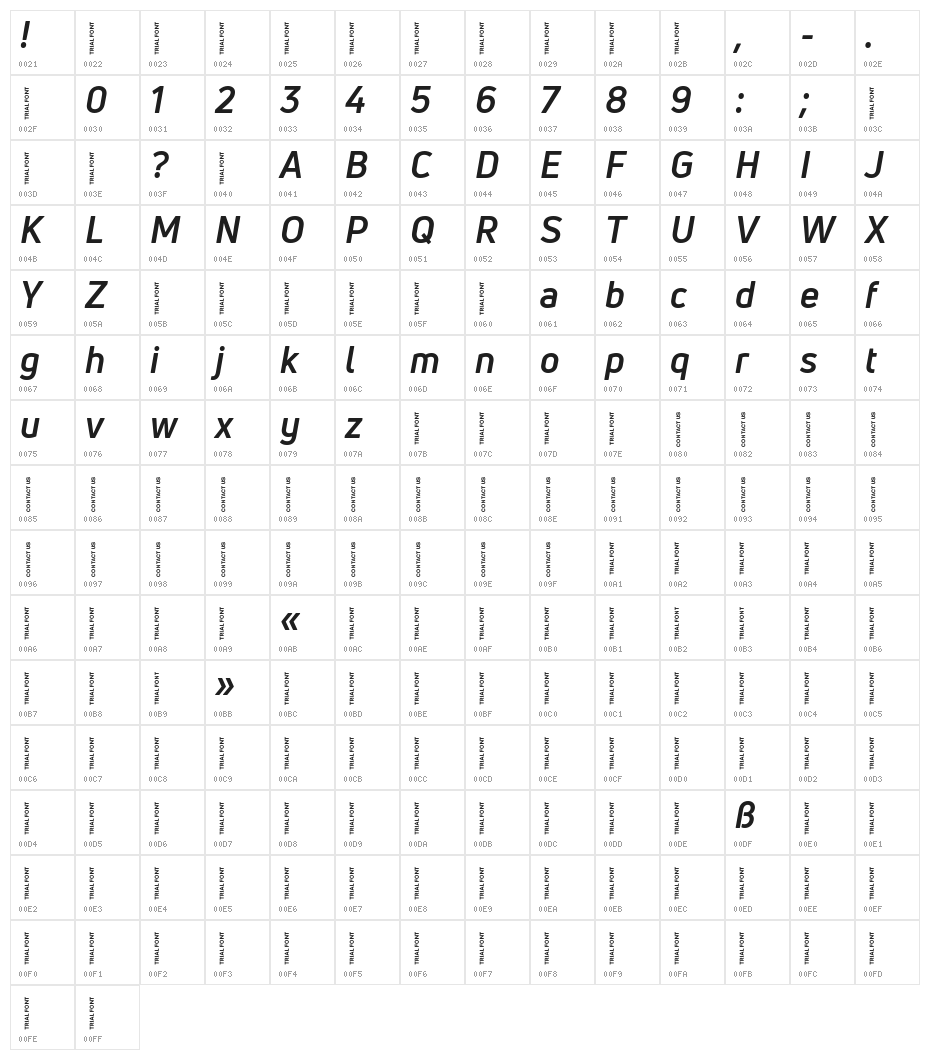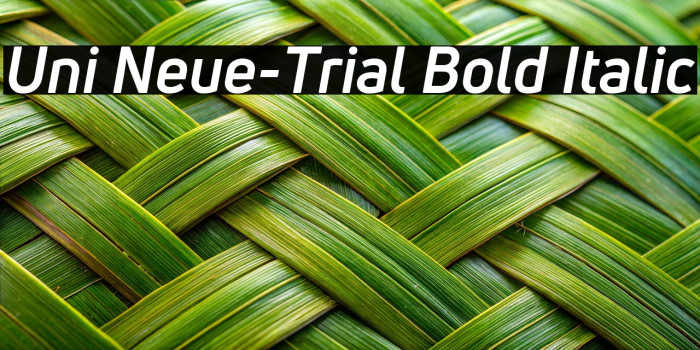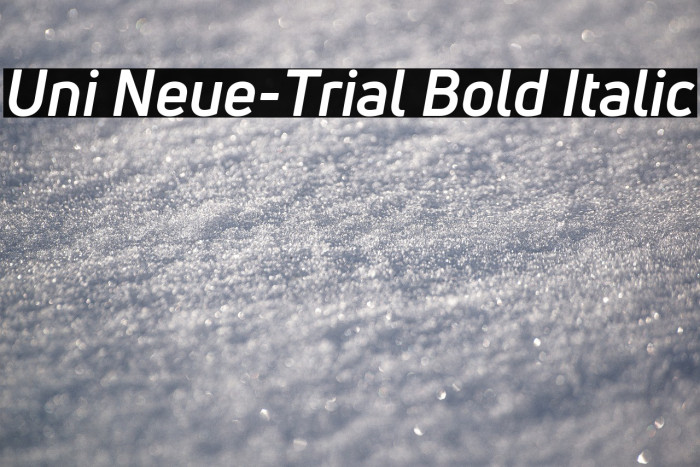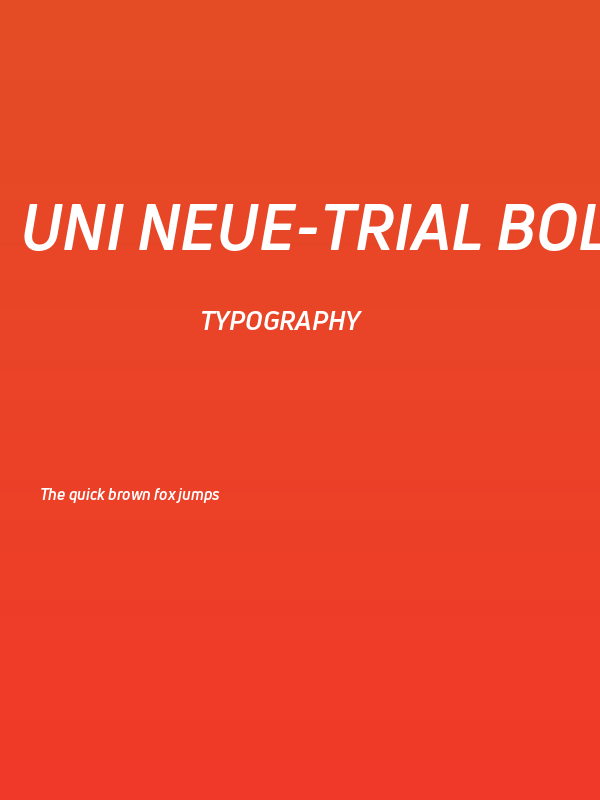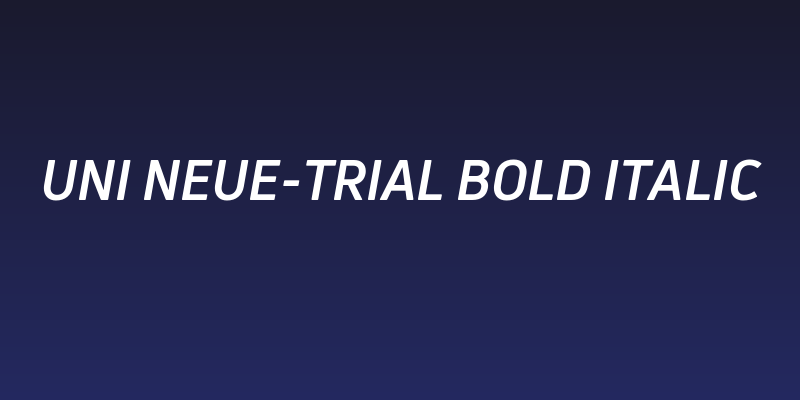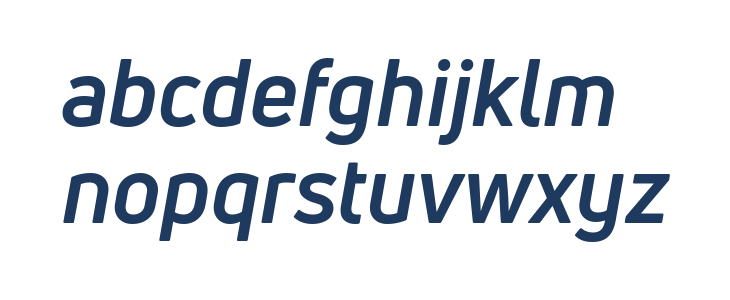
This font exhibits a modern and sleek design with a bold and italicized style. The characters are slightly condensed, giving it a compact appearance while maintaining readability. The strokes are consistent in thickness, offering a medium contrast that enhances its contemporary look. The font's clean lines and smooth curves make it versatile for various design applications. Its italic nature adds a dynamic and forward-leaning aspect, suitable for creating emphasis in text. The numerals are clear and distinct, making them ideal for use in data visualization or infographics. Special characters are well-defined, ensuring compatibility with a wide range of uses.
Use CaseHeadlines, Logos, Digital Media
Proposed ProjectsIdeal for branding, advertising, digital media, and editorial design projects.